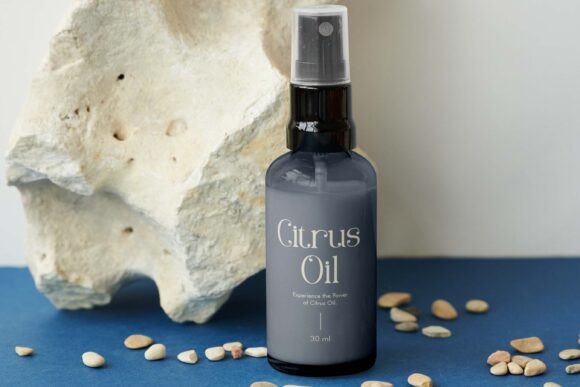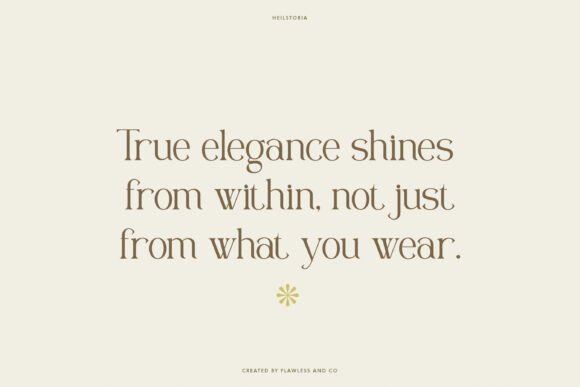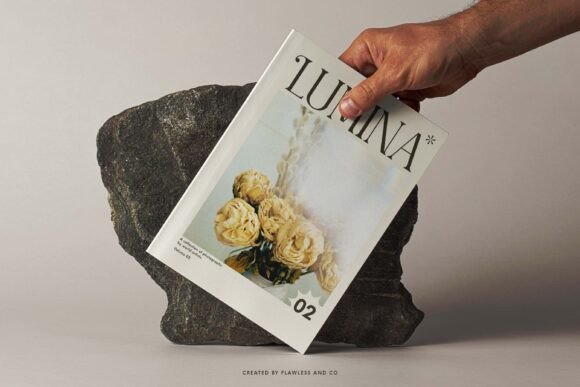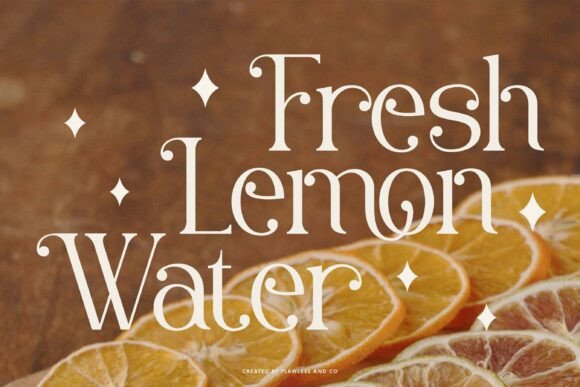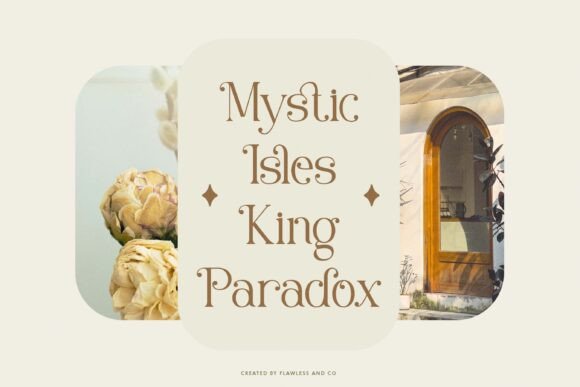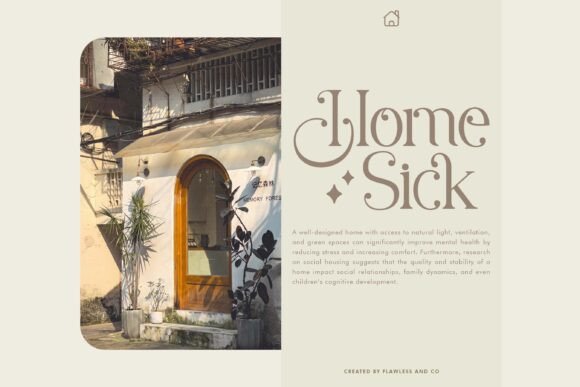
Introducing Heilstoria Font: Elevate Your Designs with Timeless Elegance
In the world of typography, a font can make or break a design. For designers and crafters seeking to add a touch of sophistication and charm to their work, Heilstoria Font is an exceptional choice. This modern and elegant serif font is designed to bring luxury and refinement to any design, making it perfect for a wide range of applications.
The Beauty of Heilstoria Font
Heilstoria Font boasts beautiful alternates, refined details, and graceful letterforms that exude elegance and poise. Its modern serif design ensures that it stands out from more traditional fonts, while its versatility makes it suitable for various design projects. Whether you’re working on luxury branding, fashion editorials, wedding invitations, high-end packaging, or stylish logos, Heilstoria Font is an excellent choice.
Perfect for Luxury Branding
Luxury branding requires a font that conveys sophistication, elegance, and refinement. Heilstoria Font meets these requirements with ease, thanks to its classic yet modern design. Its elegant letterforms and beautiful alternates ensure that your brand stands out from the competition, while its refined details add a touch of luxury to any design. With Heilstoria Font, you can create a lasting impression on your audience and establish a strong brand identity.
Fashion Editorials and Wedding Invitations
Fashion editorials and wedding invitations require a font that is both stylish and elegant. Heilstoria Font is perfect for these applications, as its modern serif design and beautiful alternates add a touch of sophistication to any text. Its refined details and graceful letterforms ensure that your design is both visually appealing and easy to read, making it ideal for editorials, invitations, and other high-end applications.
High-End Packaging and Stylish Logos
When it comes to high-end packaging and stylish logos, a font that conveys luxury and sophistication is essential. Heilstoria Font meets these requirements with ease, thanks to its elegant design and refined details. Its modern serif font ensures that your packaging or logo stands out from the competition, while its beautiful alternates add a touch of uniqueness to your design.
Key Features of Heilstoria Font
- Modern and elegant serif font: Heilstoria Font features a classic yet modern design that is perfect for luxury branding, fashion editorials, and high-end applications.
- Beautiful alternates: The font includes beautiful alternates that add a touch of uniqueness to any design.
- Refined details: Heilstoria Font features refined details that ensure a high level of sophistication and elegance.
- Graceful letterforms: The font’s elegant letterforms are both visually appealing and easy to read.
- Versatile: Heilstoria Font is suitable for a wide range of design projects, including luxury branding, fashion editorials, wedding invitations, high-end packaging, and stylish logos.
Why Choose Heilstoria Font?
With so many fonts available, why choose Heilstoria Font? The answer lies in its timeless elegance and versatility. This modern serif font is designed to bring sophistication and charm to any design, making it perfect for designers and crafters seeking to elevate their work. Its refined details, beautiful alternates, and elegant letterforms ensure that your design stands out from the competition, while its versatility makes it suitable for a wide range of applications.
In conclusion, Heilstoria Font is an exceptional choice for designers and crafters seeking to add a touch of sophistication and elegance to their work. Its modern and elegant serif design, beautiful alternates, refined details, and graceful letterforms make it perfect for luxury branding, fashion editorials, wedding invitations, high-end packaging, and stylish logos. With Heilstoria Font, you can elevate your designs and create a lasting impression on your audience.